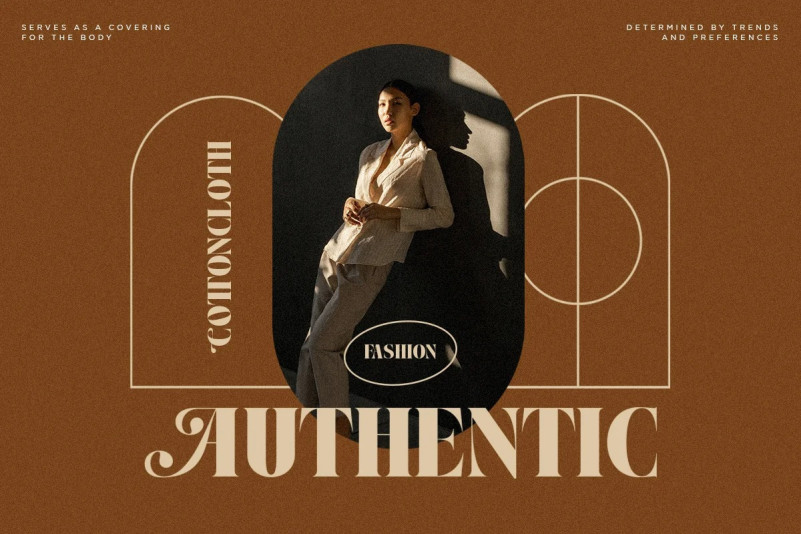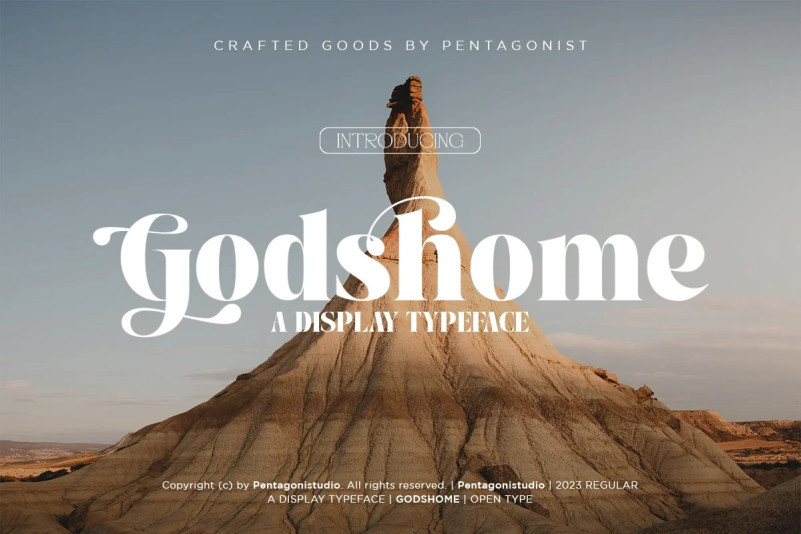
Godshome Font
Godshome Serif Font is a modern serif typeface inspired by fashion and elegance. It can easily be matched to an incredibly large set of projects, so add it to your creative ideas and notice how it makes them stand out!